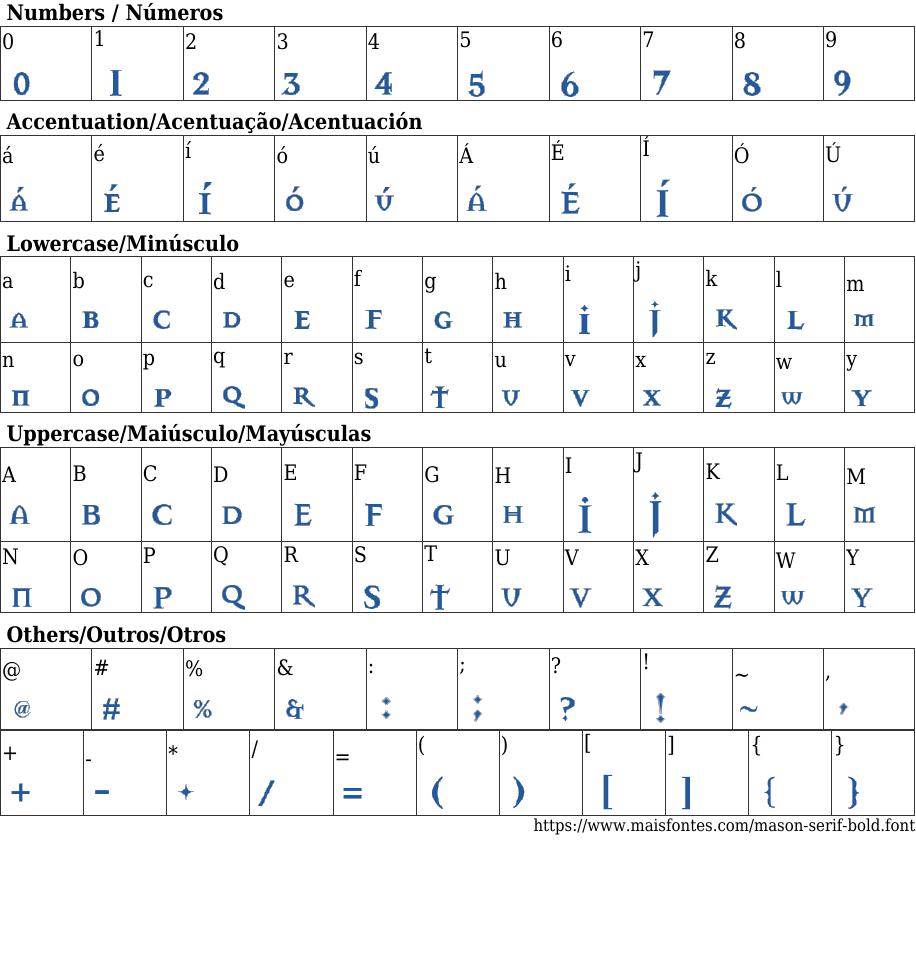
Web download masonserifbold regular for free. A decorative typeface with 2 styles, available from adobe. Web explore mason serif designed by jonathan barnbrook at adobe fonts.
Mason Serif Bold Font Free Download - Web download mason bold for free. Designed by jonathan barnbrook, mason is a historical, display sans and display serif font family. Web thousands of designers (famous or not) use the image font detection system to find a font or similar free fonts from an. ️ this font has been downloaded 40+ times. A great choice for highlighting your design elements.
Mason Serif Bold Font Free Download - Web explore mason serif designed by jonathan barnbrook at adobe fonts. ️ this font has been downloaded 40+ times. Web download mason bold for free. A decorative typeface with 2 styles, available from adobe. Web mason serif bold font free download.
Mason Serif Bold Font Free Download - Web download mason bold for free. Web explore mason serif designed by jonathan barnbrook at adobe fonts. Web mason serif bold font free download. Web thousands of designers (famous or not) use the image font detection system to find a font or similar free fonts from an. A decorative typeface with 2 styles, available from adobe.
Mason Serif Bold Font Free Download - Web download masonserifbold regular for free. A great choice for highlighting your design elements. Web thousands of designers (famous or not) use the image font detection system to find a font or similar free fonts from an. Designed by jonathan barnbrook, mason is a historical, display sans and display serif font family. Web download and install the mason bold font.
Mason Serif Bold Font Free Download - Designed by jonathan barnbrook, mason is a historical, display sans and display serif font family. Web download and install the mason bold font for free from ffonts.net. A decorative typeface with 2 styles, available from adobe. Web download masonserifbold regular for free. ️ this font has been downloaded 40+ times.
Mason Serif Bold Font Free Download - A great choice for highlighting your design elements. Web explore mason serif designed by jonathan barnbrook at adobe fonts. ️ this font has been downloaded 40+ times. With a masculine but elegant style very suitable for purposes such as. Web download and install the mason bold font for free from ffonts.net.
Mason Serif Bold Font Free Download - A decorative typeface with 2 styles, available from adobe. Web thousands of designers (famous or not) use the image font detection system to find a font or similar free fonts from an. With a masculine but elegant style very suitable for purposes such as. Web download masonserifbold regular for free. Web explore mason serif designed by jonathan barnbrook at adobe.
Mason Serif Bold Font Free Download - A decorative typeface with 2 styles, available from adobe. Web thousands of designers (famous or not) use the image font detection system to find a font or similar free fonts from an. Designed by jonathan barnbrook, mason is a historical, display sans and display serif font family. Web download mason bold for free. Web download and install the mason bold.